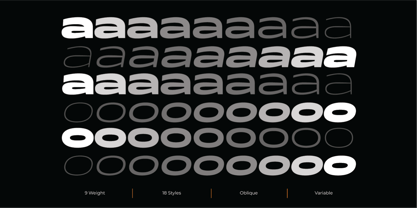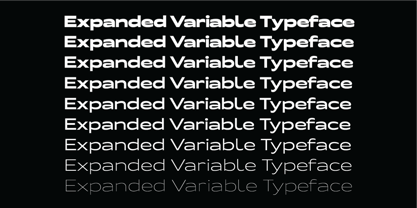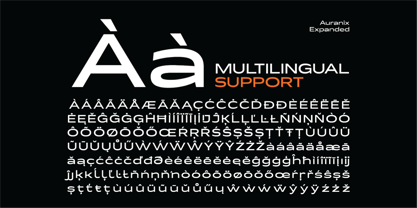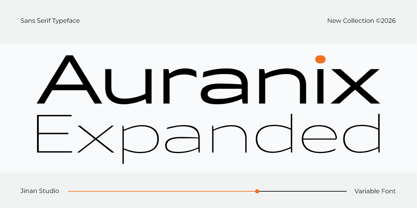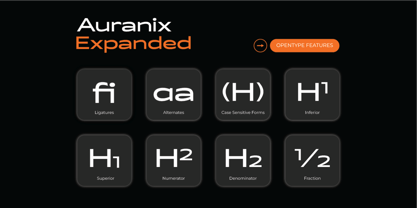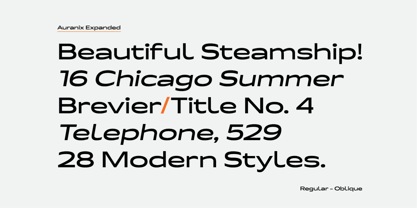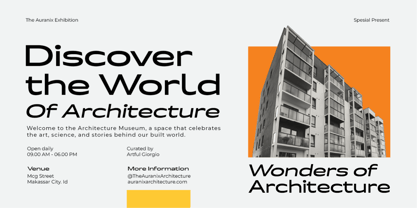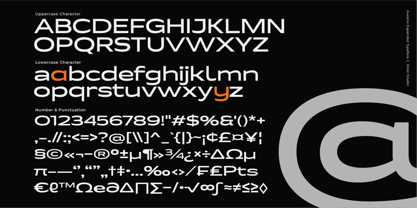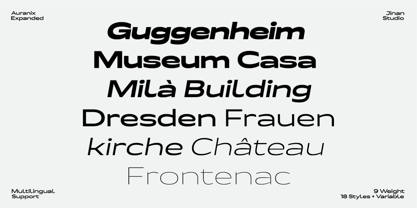
Auranix Expanded
by Jinan Studio
The Auranix Expanded Font Family was designed by Andi Syahdang, Ainun Jinan and published by Jinan Studio. Auranix Expanded contains 4 styles. More about this family
Auranix Expanded is a contemporary variable typeface designed to deliver bold presence, wide proportions, and refined versatility in one complete family. Built with a modern expanded structure, this typeface combines strong geometric foundations with smooth visual rhythm, creating a confident and distinctive appearance across both digital and print applications.
Featuring 18 carefully crafted styles plus a fully functional Variable Font version, Auranix Expanded offers extensive creative flexibility—from thin and elegant expressions to powerful and impactful heavy weights. The variable format allows seamless control across the weight range, enabling more precise typography and adaptive design workflows.
Designed for versatility and performance, Auranix Expanded works beautifully for branding, logos, editorial layouts, packaging, posters, headlines, advertising, web design, social media visuals, sports themes, futuristic concepts, and contemporary visual identities.
Its expanded proportions create a spacious and premium feel while maintaining strong readability and balanced letterforms across all sizes.
Features
• A set of uppercase and lowercase glyphs
• Number, symbol, and punctuation
• Multilingual Support
• Variable
Designers: Andi Syahdang, Ainun Jinan
Foundry: Jinan Studio